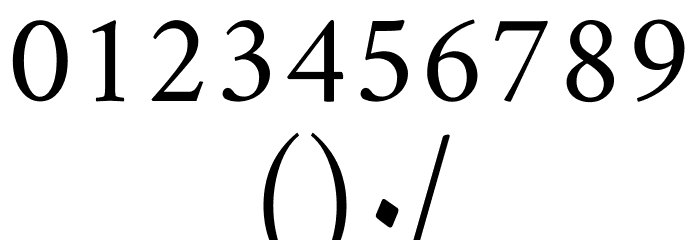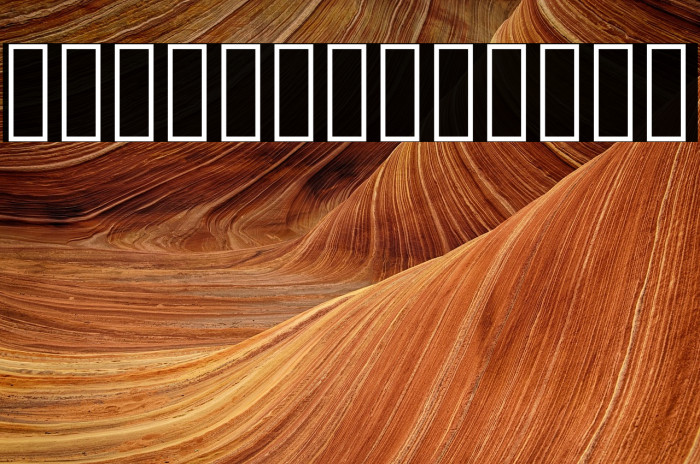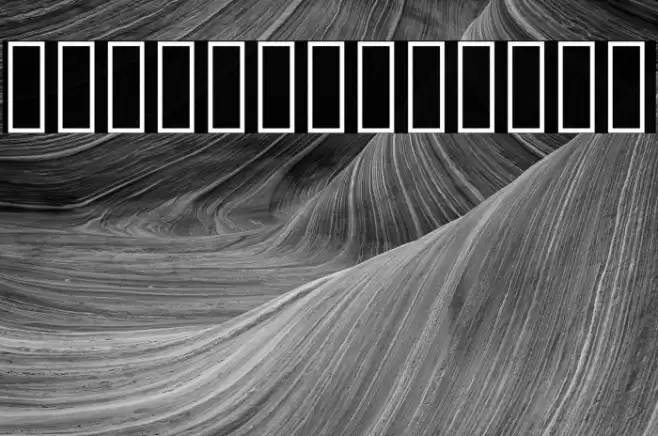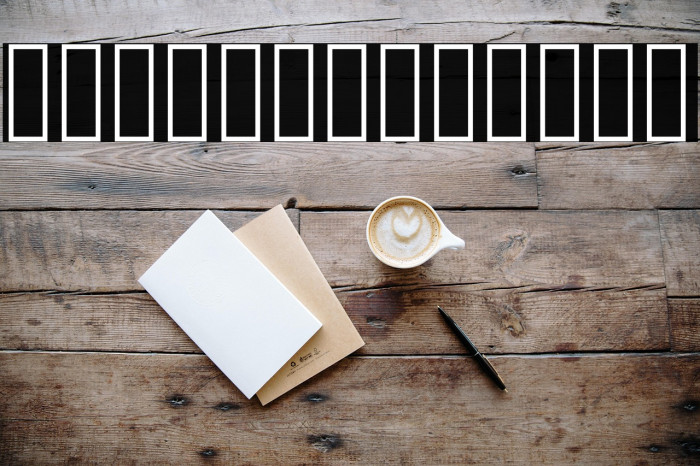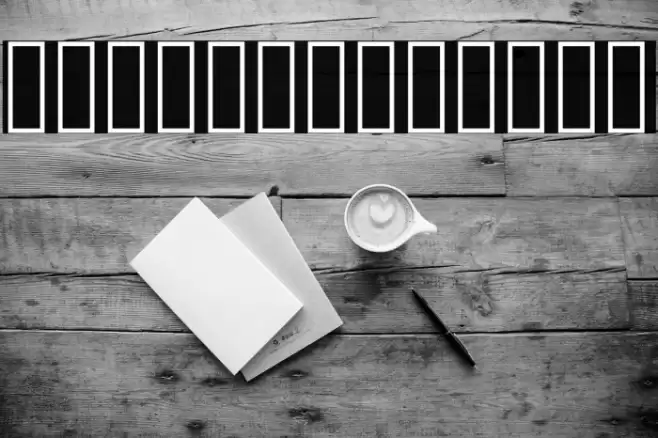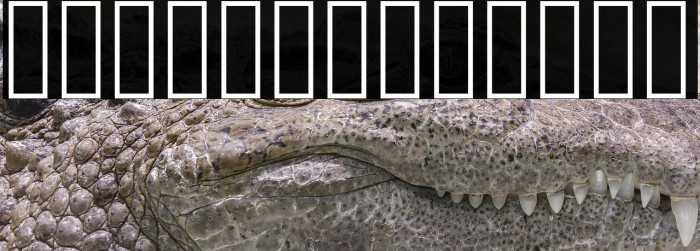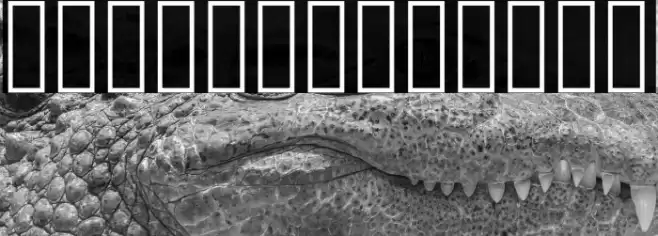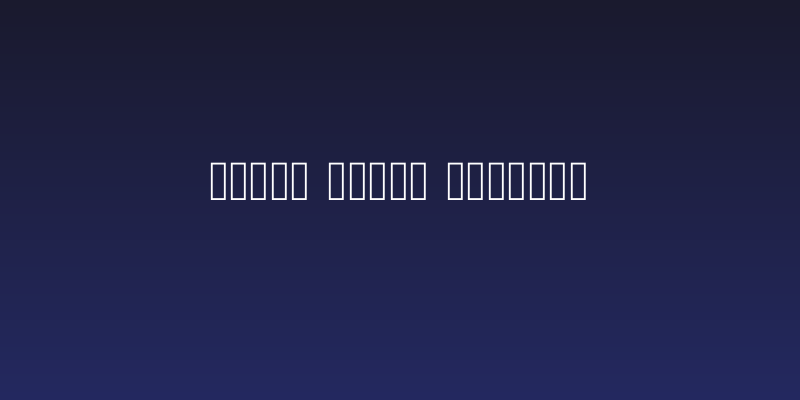
Amiri Quran Colored Font
Amiri Quran Colored Description
This font features a classic and elegant design, characterized by its smooth curves and balanced proportions. The characters exhibit a traditional serif style, with subtle yet distinct serifs that enhance readability and add a touch of sophistication. The numerals are clear and well-defined, maintaining consistency with the overall aesthetic. Special characters are crafted with precision, ensuring they integrate seamlessly with the rest of the typeface. This font's refined appearance makes it suitable for a variety of formal and professional applications.